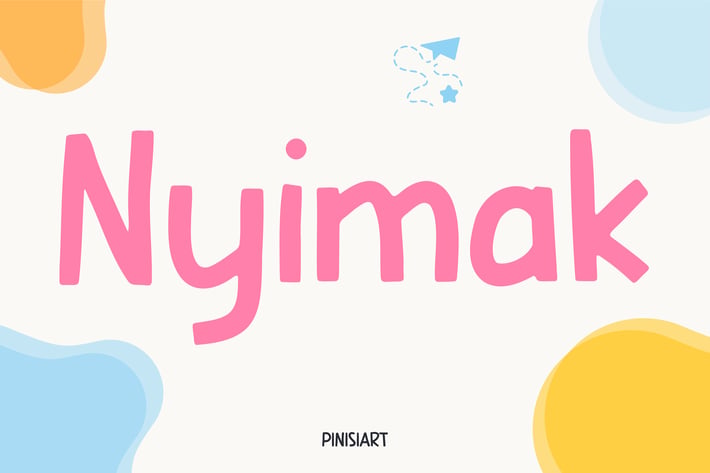
Kids Book Font - Nyimak
Nyimak is a soft, rounded handwritten sans-serif that’s perfect for young readers and educational materials. Its smooth curves and playful structure give it an approachable personality, while maintaining clarity for early reading development.
Designed with kids, parents, and teachers in mind, Nyimak works beautifully across children’s books, classroom posters, learning apps, activity sheets, and school branding. Its easygoing rhythm and gentle contrast make it especially effective in environments that need to feel safe, friendly, and inspiring.
Every letterform is designed to feel natural yet structured—fun enough to hold attention, clean enough to teach with confidence.
Nyimak makes learning feel like play. Whether you’re writing a story, building a workbook, or crafting classroom visuals, this font brings warmth, clarity, and child-friendly charm to every word.
Rounded Sans-Serif Style – Gentle curves for visual comfort and friendly tone
Handwritten Feel, Classroom Clarity – A perfect bridge between playful and practical
Ideal for Children’s Books and Education – Built for early readers, teachers, and learning designers
Complete Character Set – Includes uppercase, lowercase, numbers, punctuation
Versatile Use-Cases – Great for book covers, worksheets, school branding, posters, and flashcards
Kid-Tested Visual Style – Calming and readable across both print and digital learning spaces
Nyimak is your go-to font for kid-safe, education-strong design, ideal for designers who care about early literacy and creative learning.